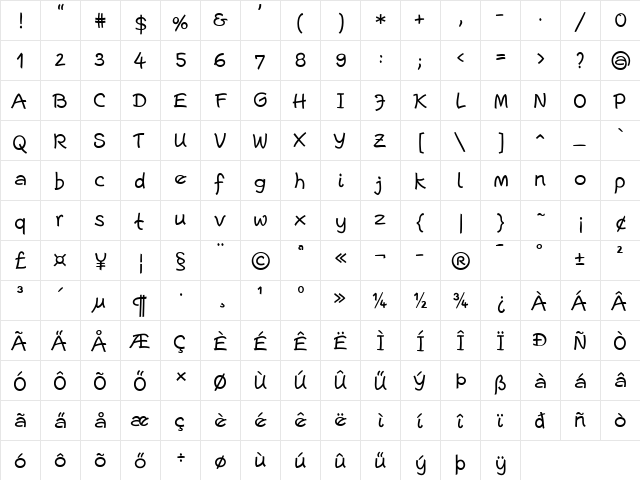
EscriptLL Medium Font Preview
EscriptLL Medium
EscriptLL Medium Font Details
Design Context for EscriptLL Typeface
EscriptLL flows with the natural rhythm of handwritten lettering, making it ideal for designs that call for warmth and personal expression.
Font Pairing: Combine EscriptLL with a simple geometric sans for maximum contrast — the tension between flowing curves and clean structure is a classic typographic pairing.
Pro Tip: Pair EscriptLL with a clean sans-serif for supporting text. The contrast between fluid script and geometric structure creates an elegant typographic hierarchy.